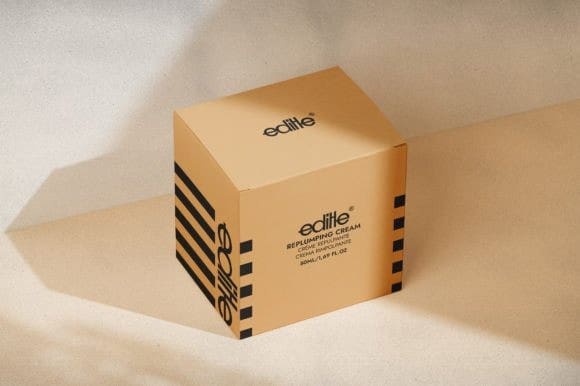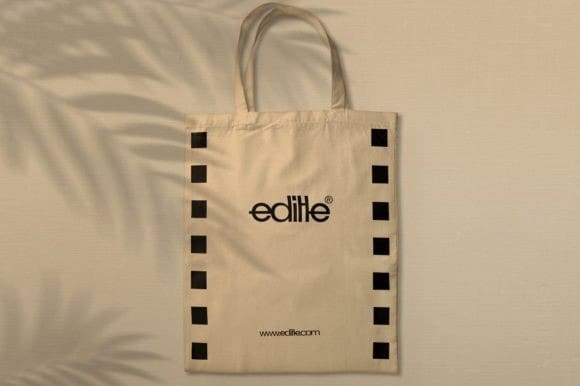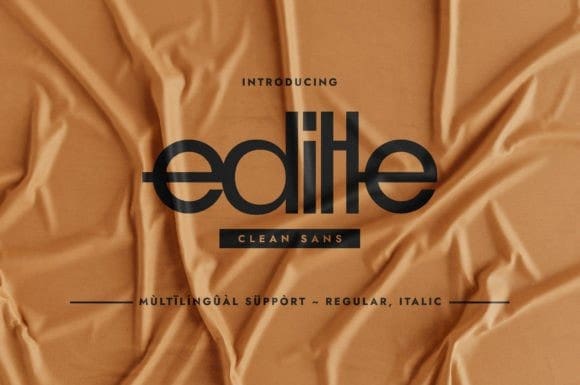
Editle Font
Editle Font is a clean minimalist and compressed sans serif typeface. Its versatility renders it a valid choice when it comes to logo design, packaging design, large-scale banners, or any context that requires a minimalistic touch and grabbing attention. Add it to your font library and notice how it can fastly become one of your favorite choices.